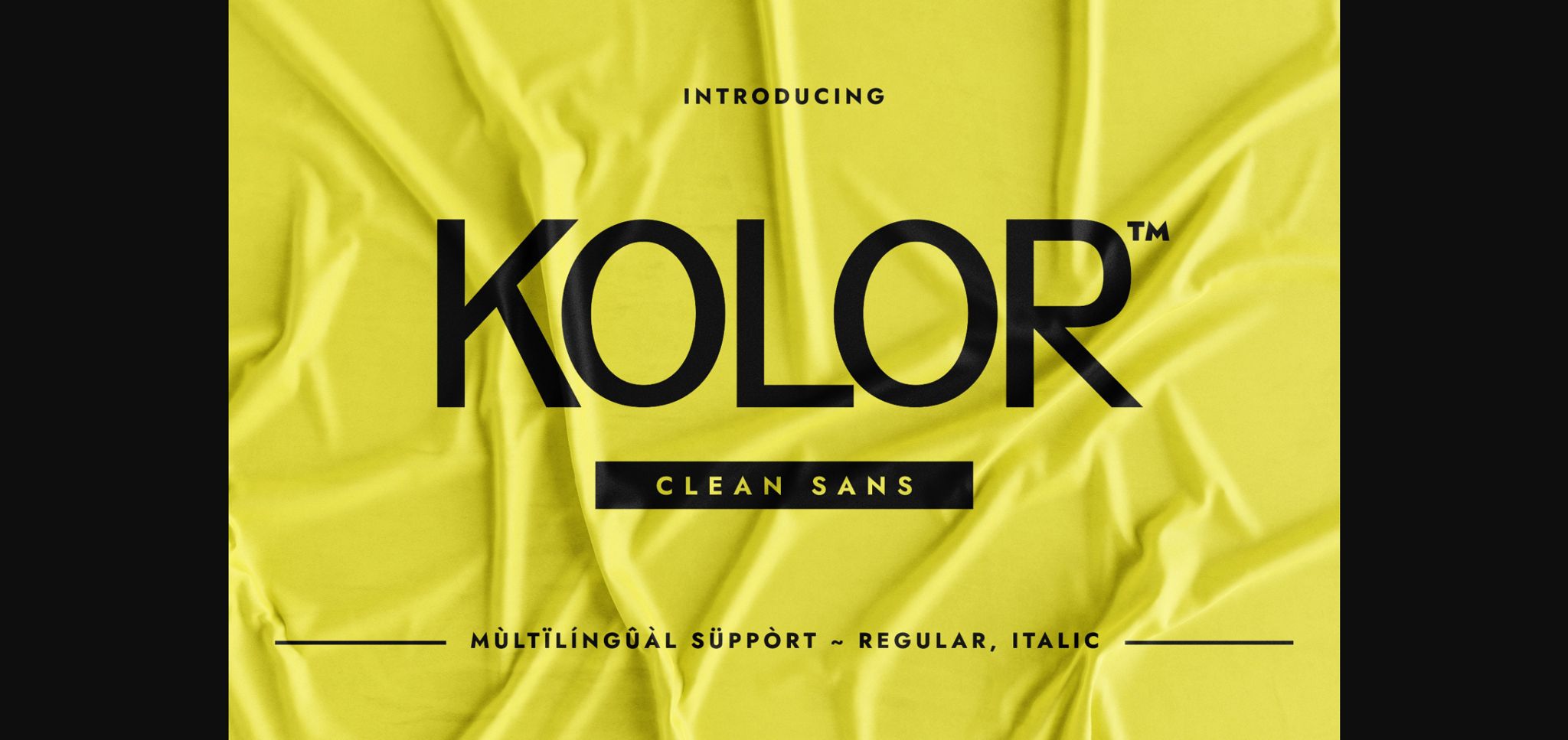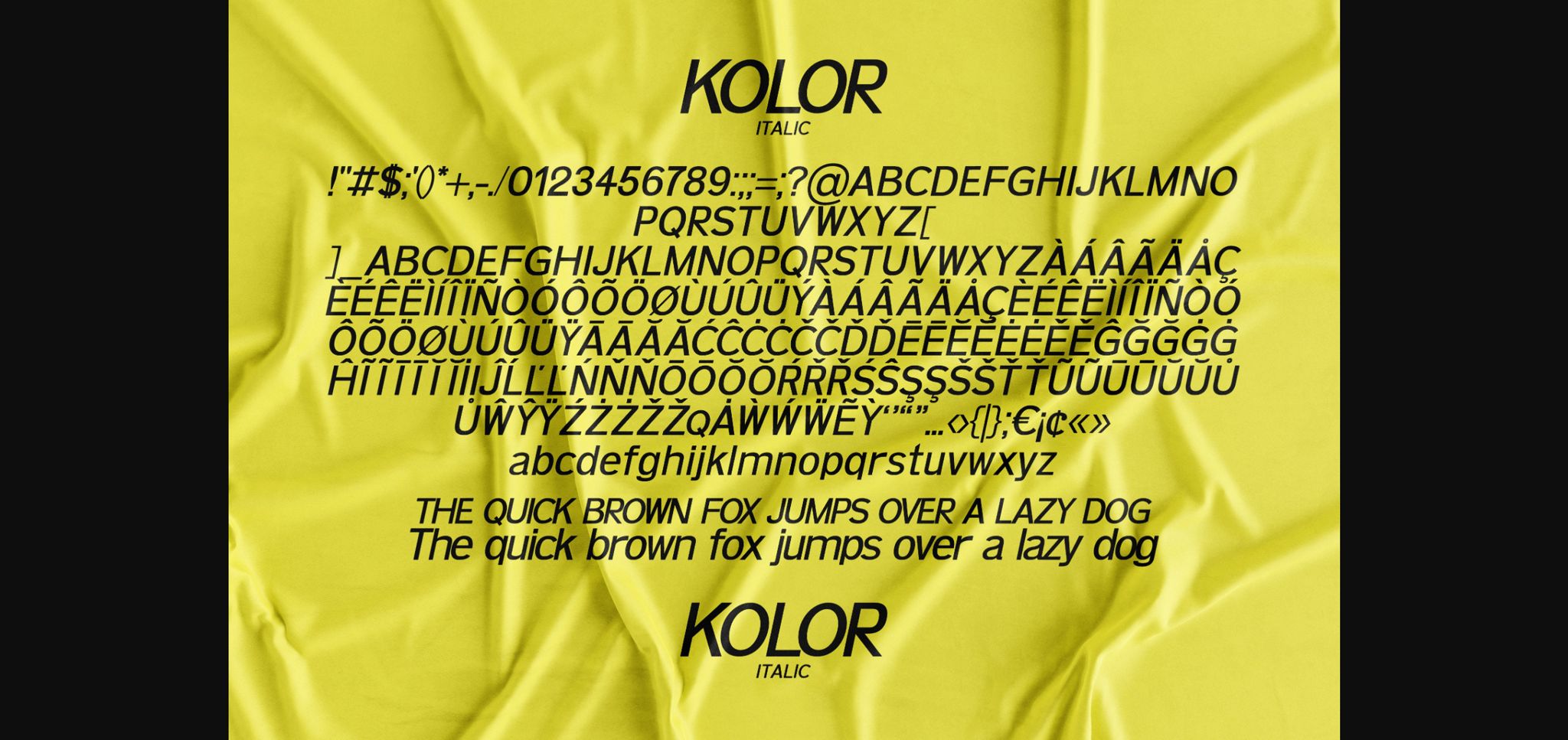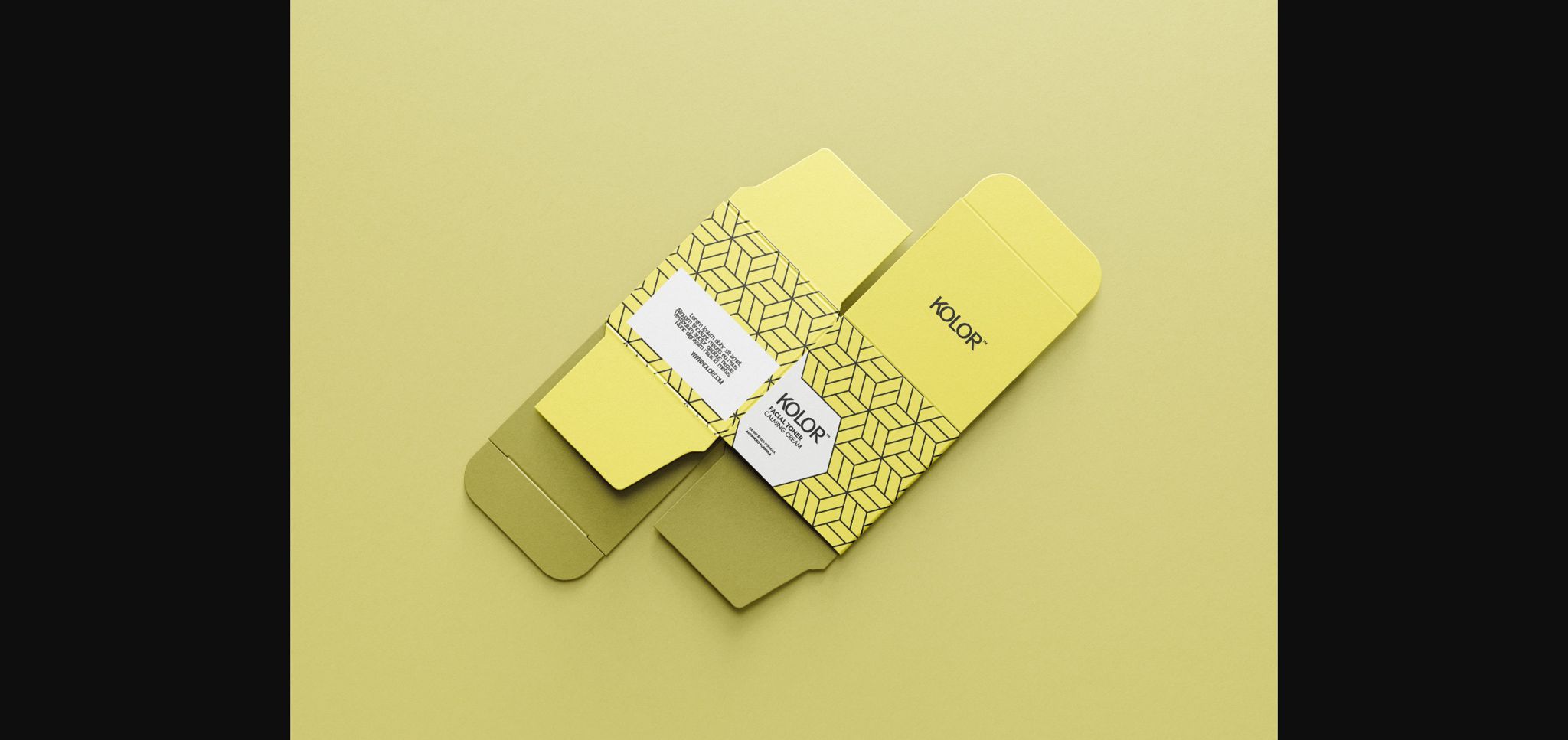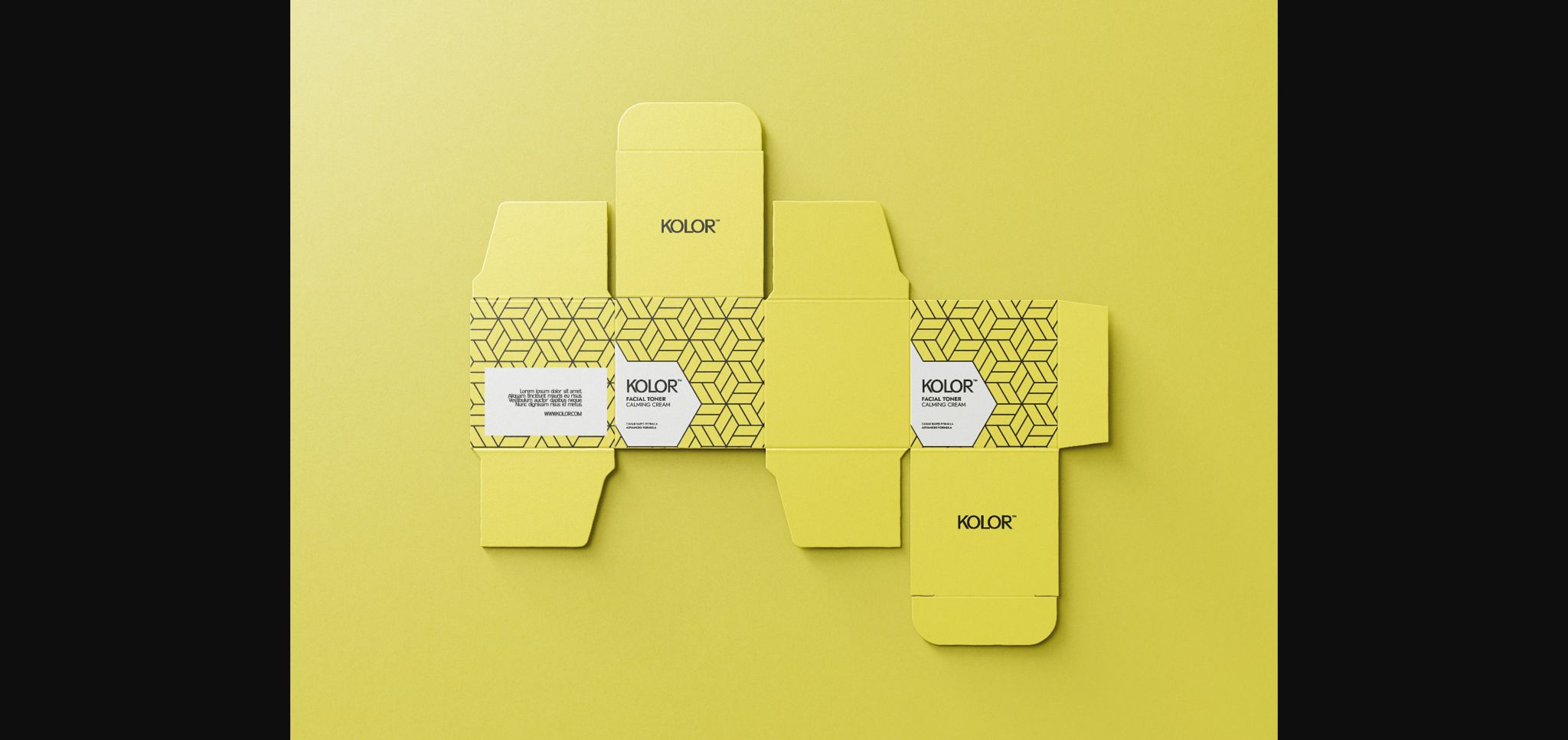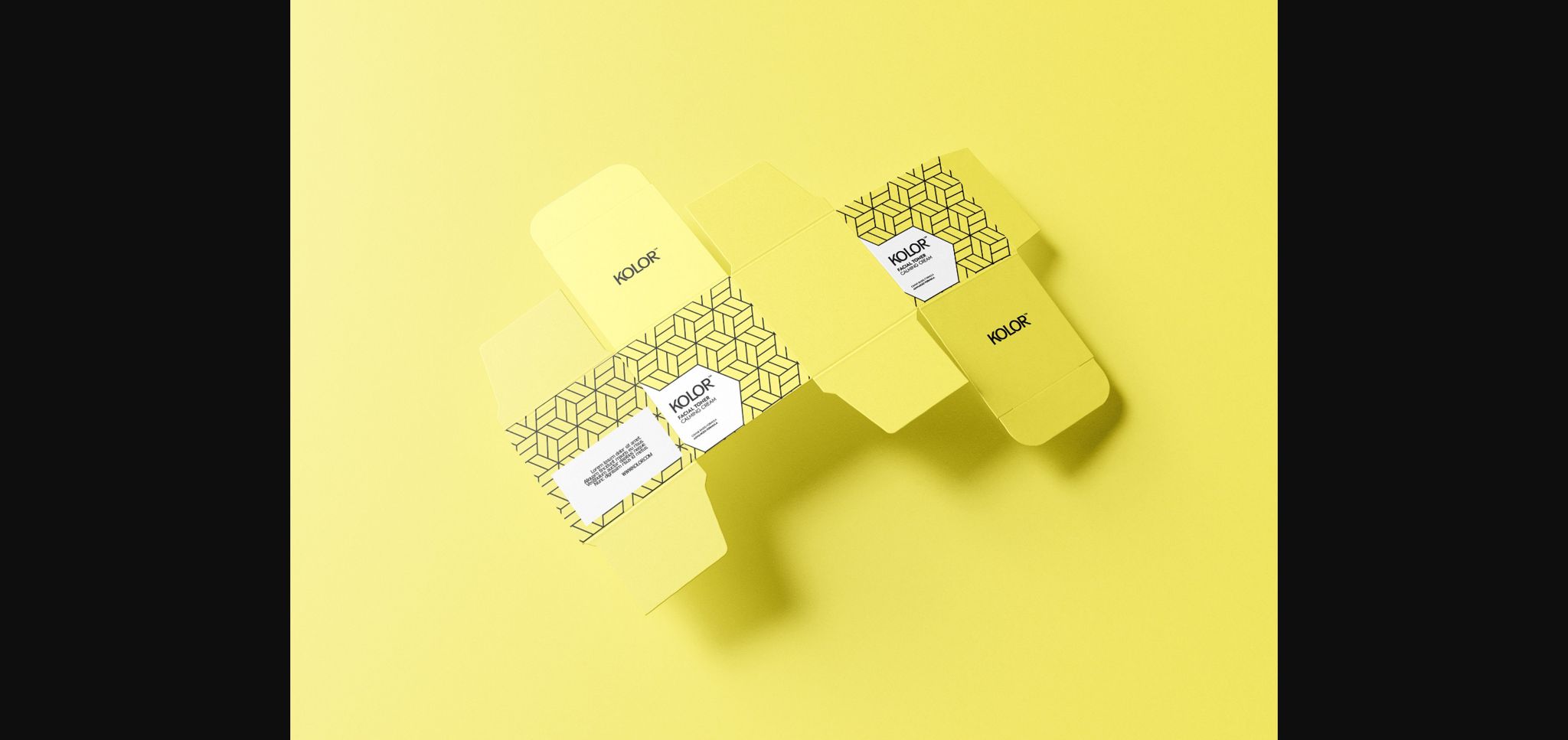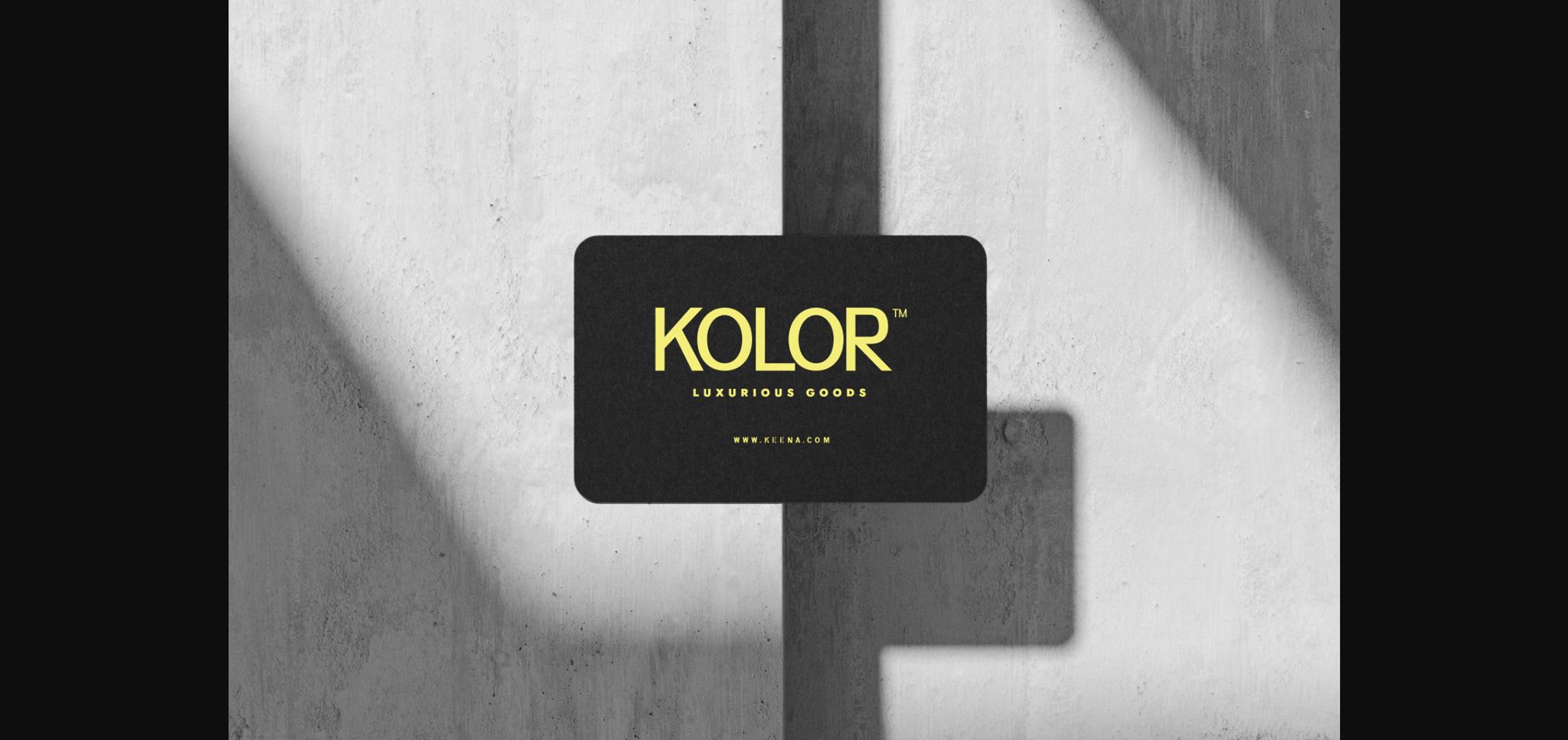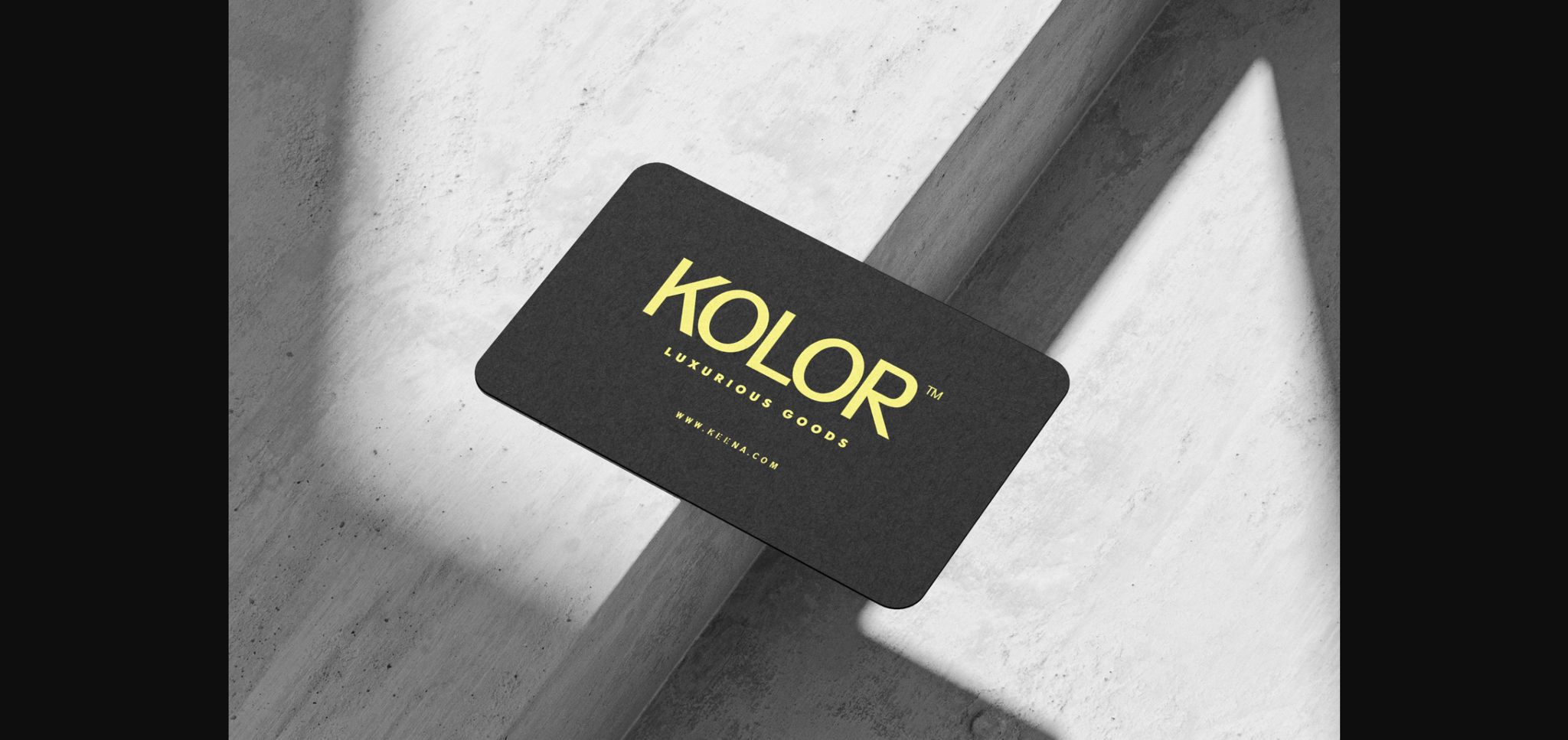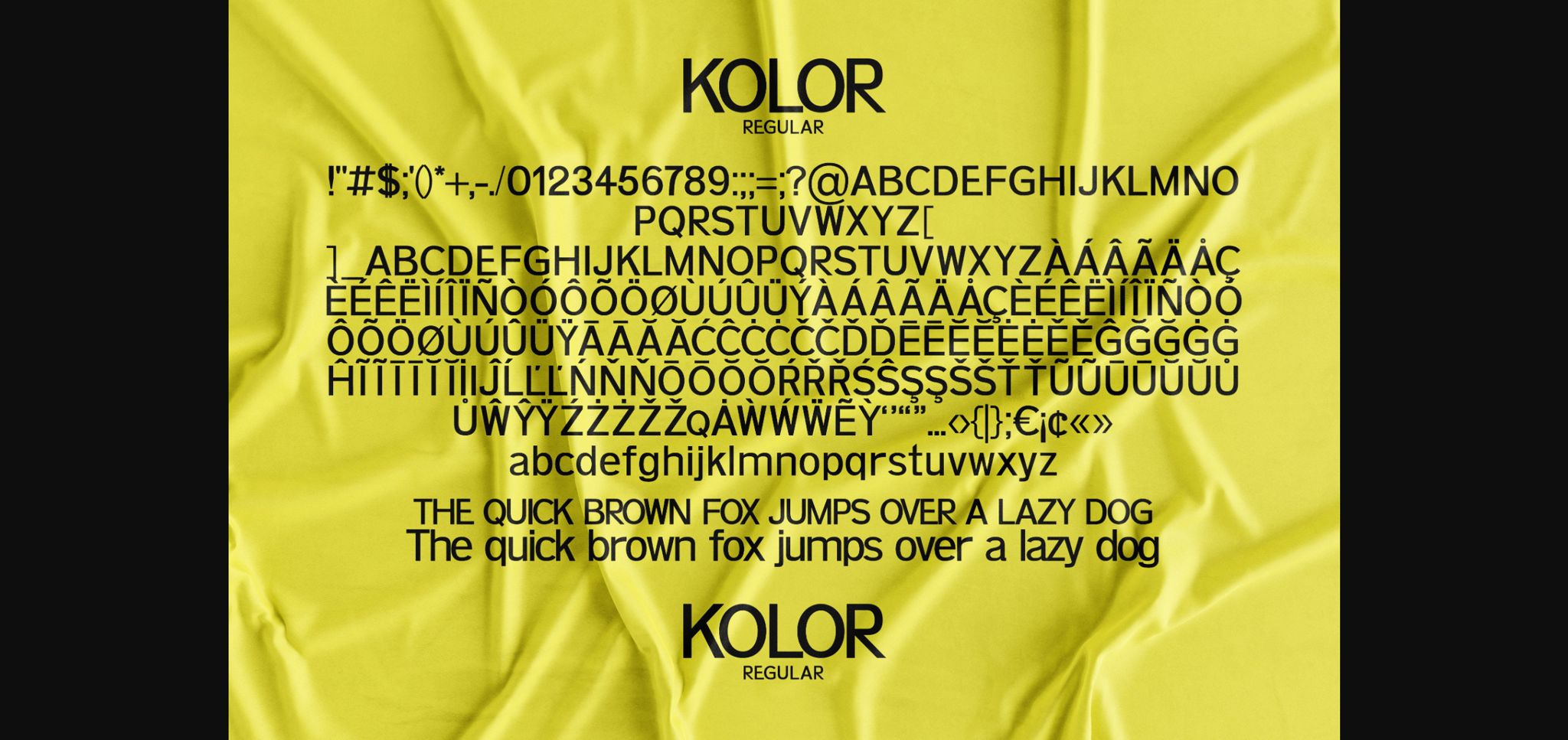
Kolor Font
About Kolor Font
Kolor is a minimalistic, clean, and geometric sans serif typeface. Its simple and geometric glyphs construction renders it a valid choice when you are designing various themes such as poster design, packaging design, perfume, cosmetics, flyers, business cards, invitations, etc. Use it in your creations and notice how you can easily get some nice results.